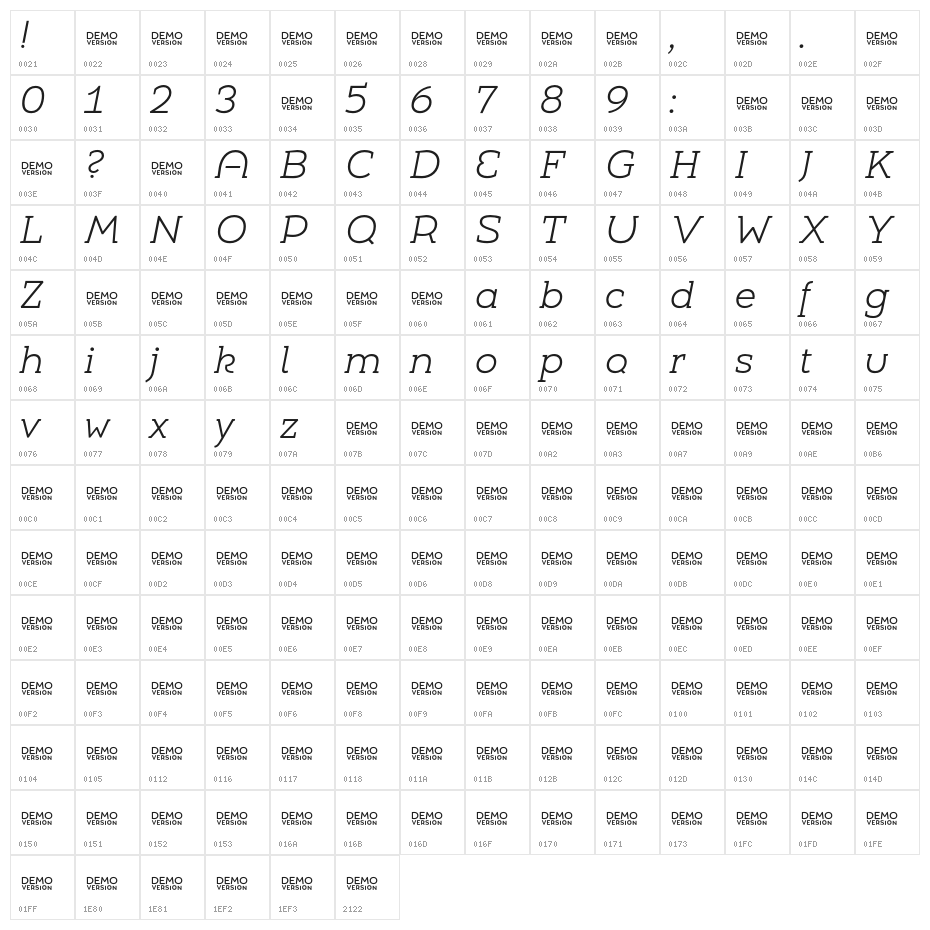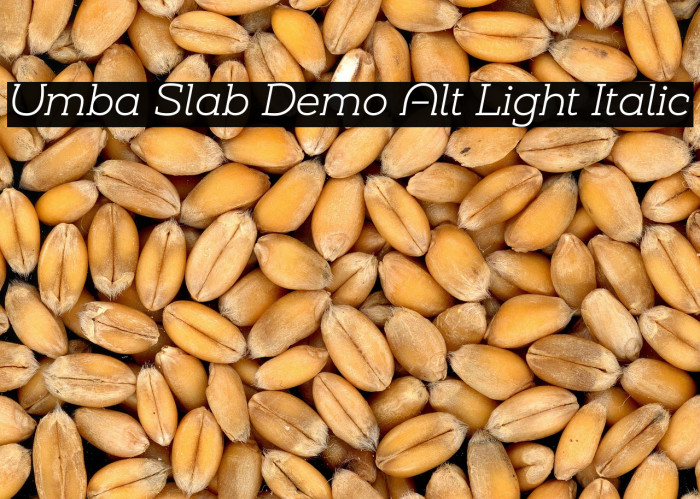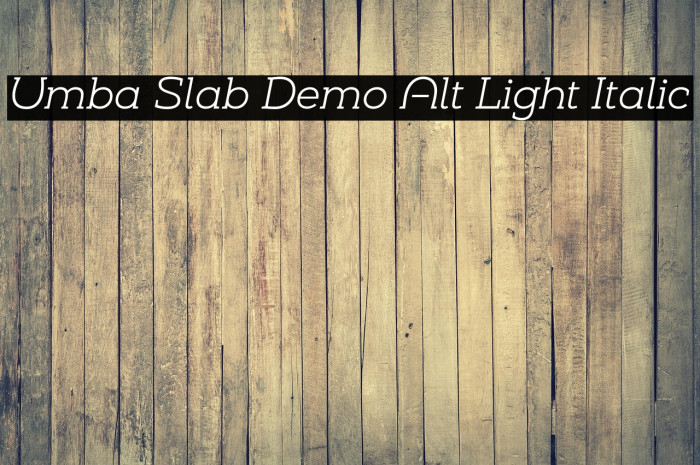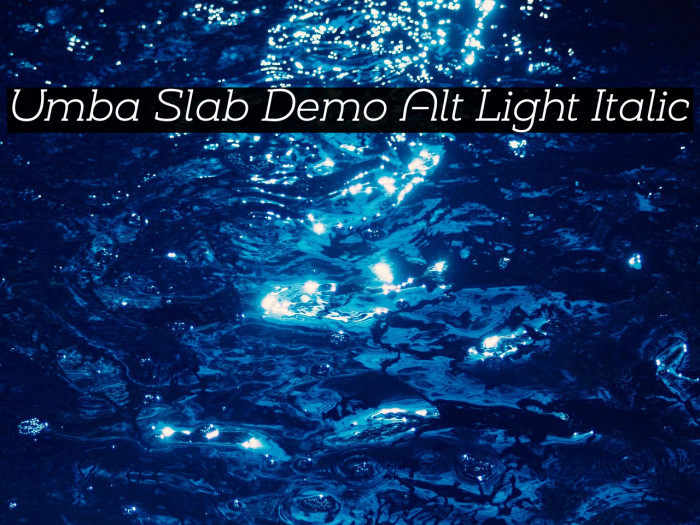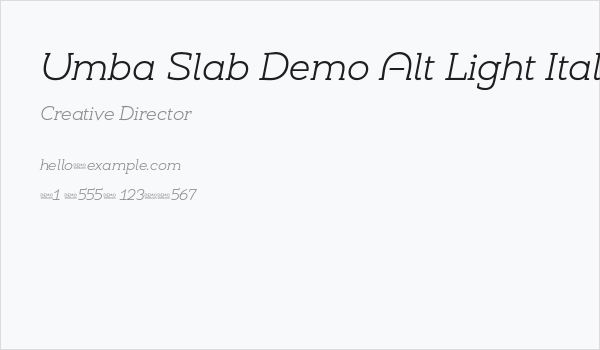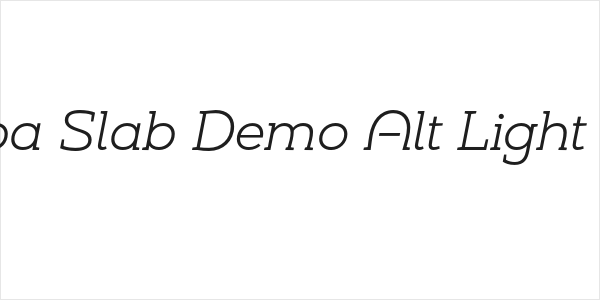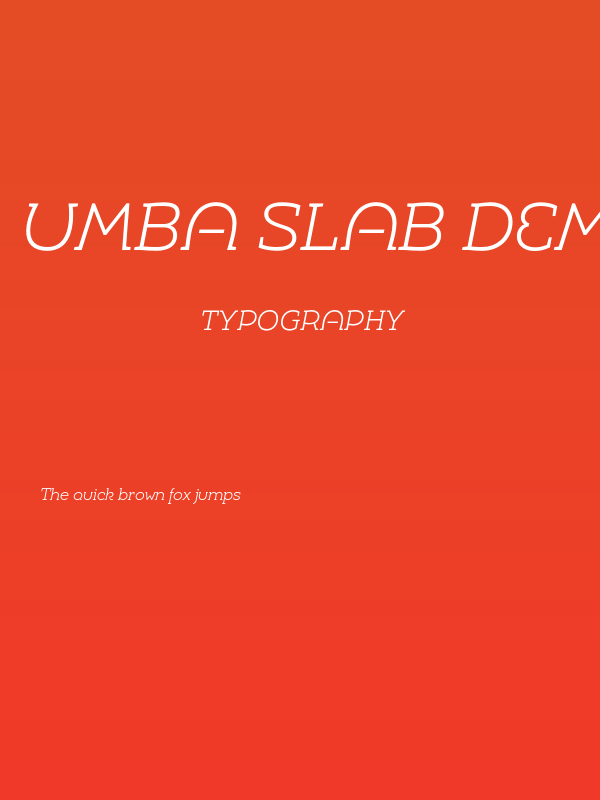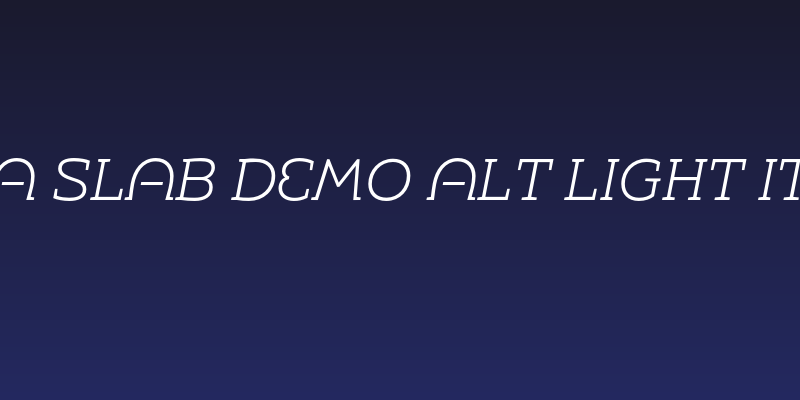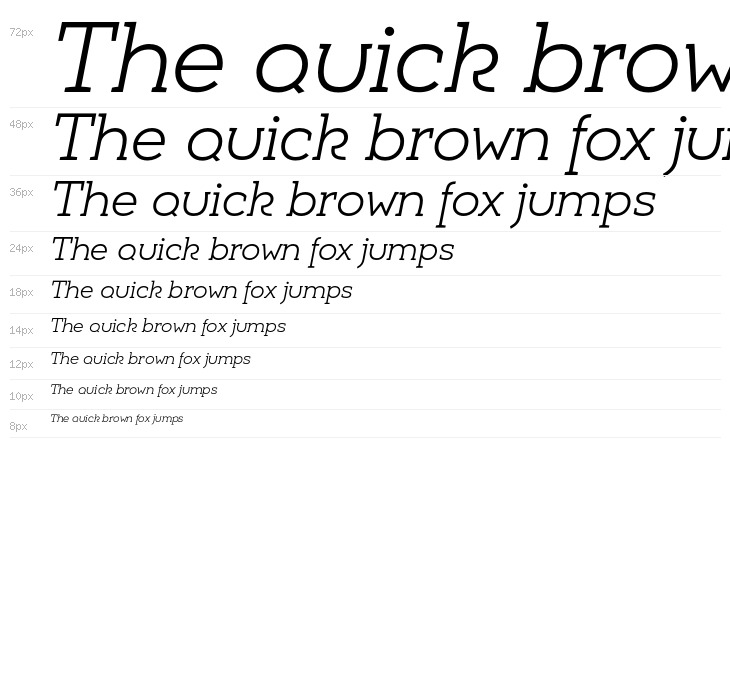
Umba Slab Demo Alt Light Italic Font
Umba Slab Demo Alt Light Italic Description
This font exhibits a refined and elegant slab serif style with a light weight and italic posture. The characters are well-defined with a subtle slant, giving it a sophisticated and modern appearance. The serifs are pronounced yet not overpowering, adding a touch of classic elegance. The font maintains a consistent stroke width, contributing to its clean and polished look. The spacing between characters is balanced, ensuring readability while maintaining its stylish flair. This font is versatile, suitable for projects that require a touch of class and modernity.